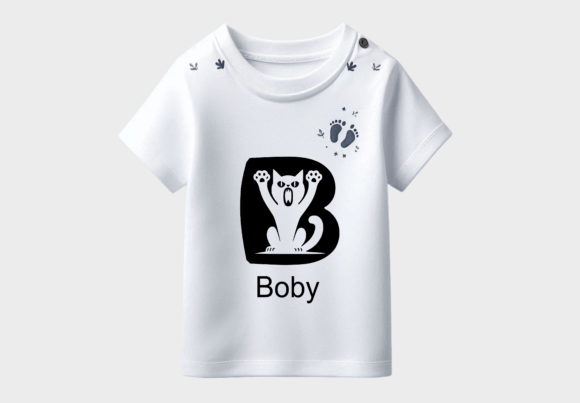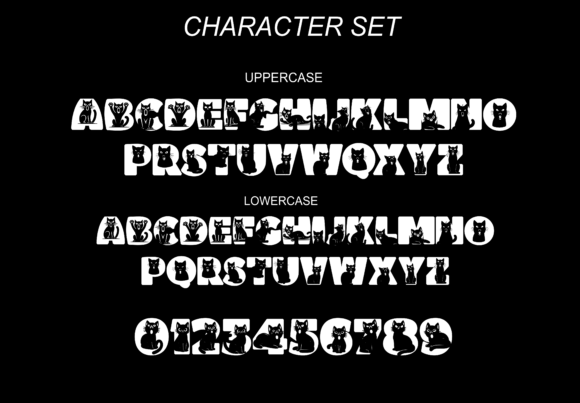
Introduction to Shock Cat Font
As a designer, you know that finding the perfect font can be a game-changer for your creative project. It’s that moment when you stumble upon a font that perfectly captures the essence of your idea, and everything falls into place. For me, that moment came when I discovered the enigmatic Shock Cat Font. Its quirky charm and bold lettering instantly drew me in, transporting me to a world of whimsy and wonder.
But what makes Shock Cat Font truly special is its versatility. Whether you’re working on a high-quality design project or simply need a free download to spice up your social media graphics, this font is sure to deliver. With its transparent background and seamless integration with any design resource, it’s the perfect addition to your toolkit.
Key Features of Shock Cat Font
- Unique and stylish font with a transparent background, perfect for adding a touch of modernity to your designs
- Features a bold and edgy style, ideal for use in headings, titles, and other prominent design elements
- Resolution-independent, ensuring crisp and clear rendering at any size, from small to large
- Perfect for designers and artists looking for a high-quality font to elevate their creative projects
- Includes a comprehensive character set, including uppercase and lowercase letters, numbers, and punctuation marks
Honest Review: Shock Cat Font
I recently came across the Shock Cat Font while searching for a high-quality font to use in a creative project. I was drawn to its unique design and decided to give it a try. After downloading the font for free, I was excited to see how it would look in my design.
What works well: ✨ The Shock Cat Font has a fun, playful vibe that’s perfect for projects that need a bit of whimsy. The font is also incredibly versatile, with a transparent background that makes it easy to use in a variety of design contexts. I was impressed by the level of detail in the font’s design, with each letter carefully crafted to create a cohesive look.
Limitations: ⚠️ While the Shock Cat Font is a great resource for designers, it may not be suitable for all types of projects. The font’s playful style may not be the best fit for more formal or professional designs. Additionally, the font may not be compatible with all operating systems or software.
Overall, I’m impressed by the Shock Cat Font and would definitely recommend it to designers looking for a high-quality, free download. Just be aware of the font’s limitations and use it in the right context.
- Perfect for creative projects that need a playful touch
- High-quality design with transparent background
- May not be suitable for formal or professional designs
- May not be compatible with all operating systems or software
Shock Cat Font is ideal for designing creative projects such as logos, brochures, and infographics. Its high-quality design makes it perfect for professional and personal projects alike.